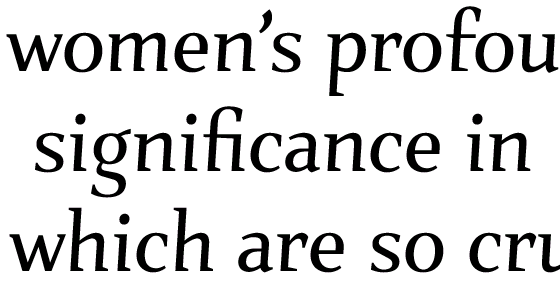
What makes an italic easier to read?
John Berry notes that Mark van Bronkhorst’s old style italic for his typeface Verdigris is exceptionally readable. Minion’s italic is also quite successful in this respect, I think.
I would be interested in people’s views on what makes for a readable italic. For example, old style italics tend to have a great variety of different slants to the letters. Does making them more uniform help readability, or not? Do wider letters help? Handling of contrast? Smaller or bigger ’serifs’?
I understand that often there is a desire to have the italic ’dance’ more than the roman, and accept some lesser readibility for the sake of emphasis or decorative force. Still, within these constraints, how do people view the problem?
Also discussions of italics seem to be very rare, compared to discussions of romans. Any good references?
not that i’ve studied this at all, but my gut reaction is that simpler is more readable. I would think that ornamentation and high-contrast make an italic less readable, so shoot for simpler, lower-contrast forms???
I actually always liked the Linotype-technology Sabon italic. Some say that the fact that the italics had to be drawn on the roman proportions was a huge limitation, and of course it was. The Sabon italic was a bit too wide and unnatural, but on the other hand, it actually was quite widely spaced which I fould worked nicely. I see the same charasteristics in Verdigris italic, and I think it works very well!
I am by no means an historian and have no developed theories nor have authoritative reference material to back it up, but it seems that even in the earliest of comparisons between Roman (inscription based) and italics (cursives) that indeed italics seem not only more fluid but facilitate reading.
It may (and I emphasize ’may’) be that informal penned forms were originally the most common expression of individual written communication (handwriting). Since most literate individuals can quickly write and decipher the majority of other peoples’ handwriting, we may have developed a mental facility for decripting diverse and variable script forms.
Even in the poor reproduction above, to me it seems easier to read the italics.
Since most italic typefaces remain faithful to the earliest of typeface designs, and since the earliest of italics approximated Chancery scripts, the visual link back to human written forms remain.
I would tend to agree with Paul and Adam, and taking it slightly further I would say that in most cases, what makes a legible roman makes a legible italic, for example: simple terminals, wide apertures, a reasonably large x-height, etc.
Something you probably wouldn’t expect (and which some may disagree with me about) is that swashier caps (within reason) tend to improve legibility! I think this is mainly because it’s an indication that the caps were designed to fit with the italic, as opposed to being ripped from the roman and skewed.
“Even in the poor reproduction above, to me it seems easier to read the italics.”
Actually, I think the opposite is true. To me the Roman reads much better than the italic.
I interpreted Williams question to be about the readability of italics among themselves, not so much compared to their upright counterparts.
To me, the main issue with Italics is that they have sufficient separability from the upright to be noticeable without being alarmingly different in color. Since it is rare to see long passages of italic text, readability issues (tiring of the readers eyes) are not very relevant. What is sometimes done to create separation from roman is to slightly condense the italic yet lighten the weight a bit to counterbalance the color change. As Adam mentioned the Sabon went the other direction but was still handled quite well. It isn’t so much how you do it as how well you do it.
Readability and contrast-with-Roman are necessarily strongly opposed, for the simple reason that -hopefully- the Roman is the one made highly readable! That said, the dimension of difference that might least impede readability in an italic is color. So I think the “best” general italic is one with slight slant, a little bit of compression, maybe slightly smaller on the body, and visibly lighter in color. Also, to prevent it from skewing the “voice” of the Roman in an arbitrarily fluid/casual direction, the “ideal” italic is structurally quite close to the Roman. Hmmm, Harrier anyone? :-)
BUT: Since an italic is generally for subordinate snippets, its readability requirements are on the order of display types (ie not very great). Just as long as errant fixations are not triggered though.
William, I apologize ahead of time if this doesn’t follow the original intent of your topic, but I’ve thought more about the cognitive relationship between italics and handwriting.
Due to the semi-serifs. BTW, I doubt
one degree would be enough; the slant
in Rialto is the least I’d apply myself.
Jim, I have a 1957 version of the Elizabeth Barrett Browning sonnets you mention in a Stichting De Roos (Dutch—bibliphile society), set in Palatino Italic, at a rather small type size. Henk Krijger (the designer of the Raffia Initials) was the designer, and provided it with an EBB monogram. The version might bear you out in your comment on ’less slanted’ italics.